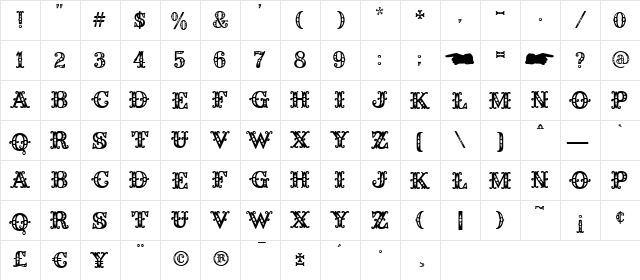
Flamingo Regular
| Foundry | Gophmann A.L. (cyr.code page) |
| Year | 1975 |
Design Context for Flamingo Typeface
Flamingo is a composed and adaptable typeface that performs quietly and consistently across a wide range of design contexts.